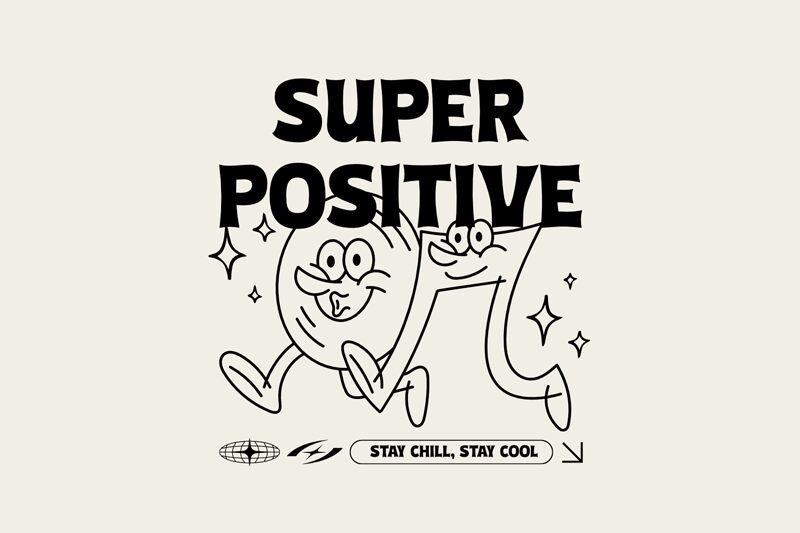
Super Positive
Super Positive is a bold, eye-catching display font that radiates energy and positivity. Designed by fsuarez913, this font boasts a distinctive style with sharp edges and a geometric aesthetic. The all-uppercase letterforms exude a sense of strength and confidence, making it an ideal choice for headlines, logos, and other high-impact design elements.
The font's bold weight and clean lines lend it a modern, contemporary feel, while the unique character shapes add a touch of playfulness. Super Positive would be well-suited for a variety of applications, from branding and packaging to editorial design and digital interfaces. Its versatility and striking visual presence make it a compelling option for designers seeking to create a bold, attention-grabbing impact.